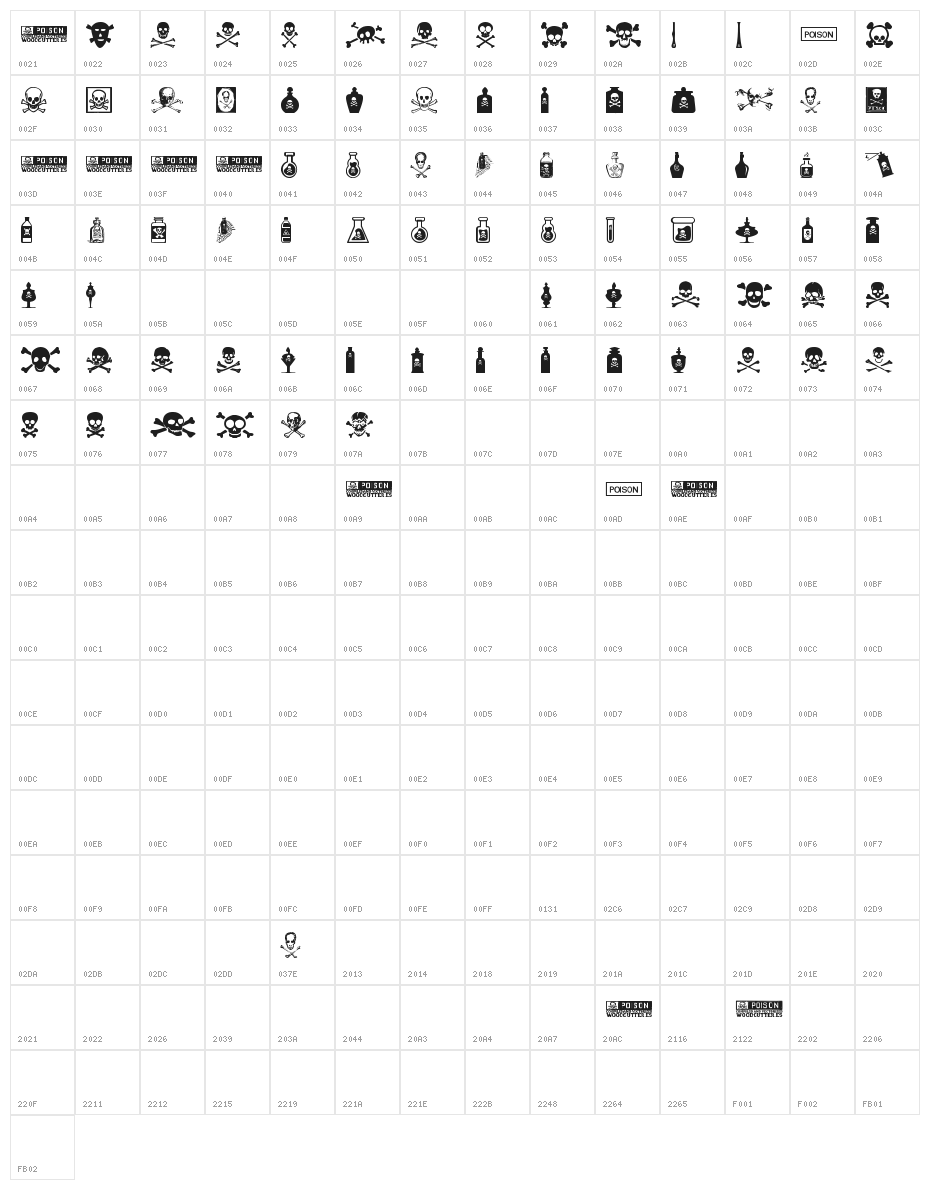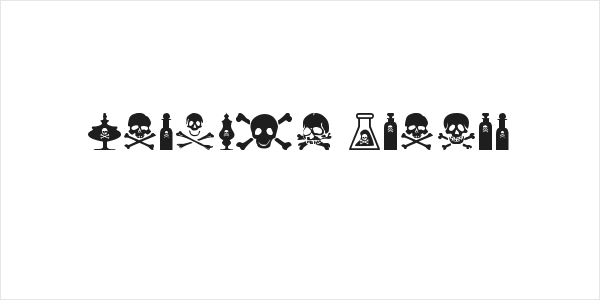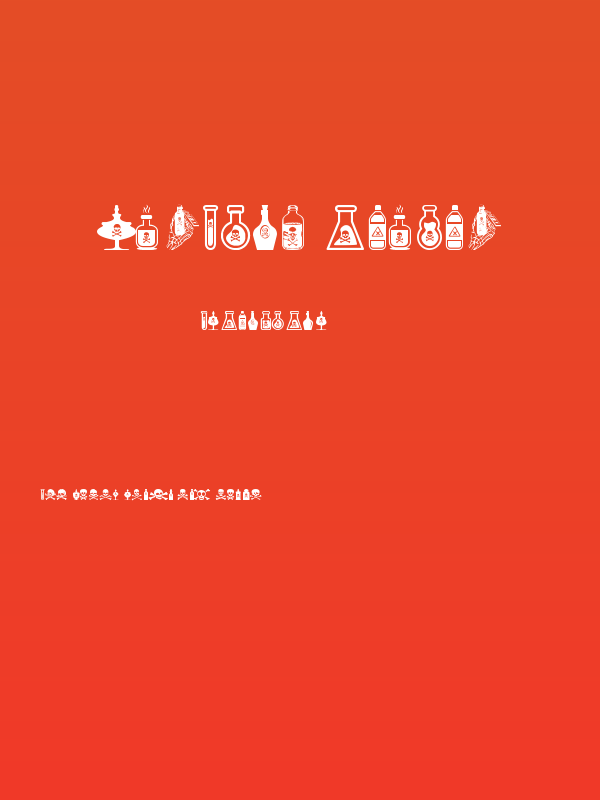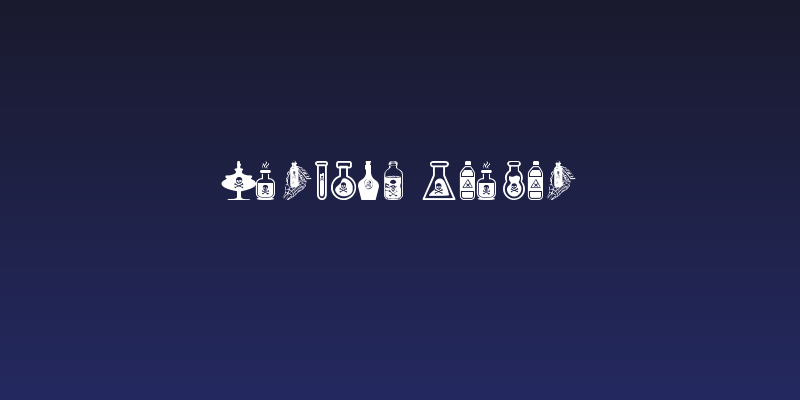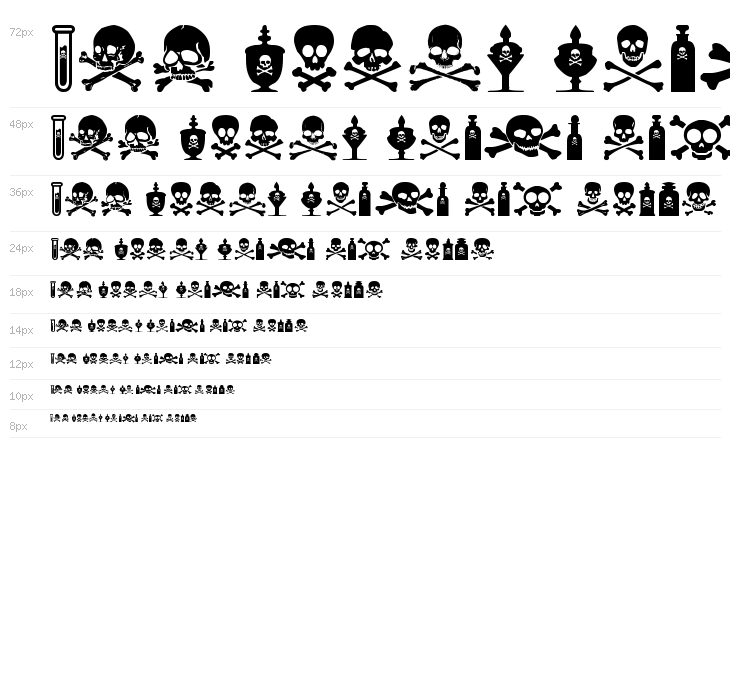
Vintage Poison Font
Vintage Poison Description
A decorative dingbat font featuring vintage poison bottles, skulls, crossbones, and apothecary-themed illustrations. The glyphs are bold, high-contrast, and rendered in a hand-drawn, retro style, evoking old poison labels and warning signs.
| Overall Style | Vintage, Decorative |
| Use Case | Logos, Posters, Themed Graphics, Decorative Elements |
| Proposed Projects | Halloween invitations, themed party decor, warning labels, posters, escape room props, vintage apothecary branding. |